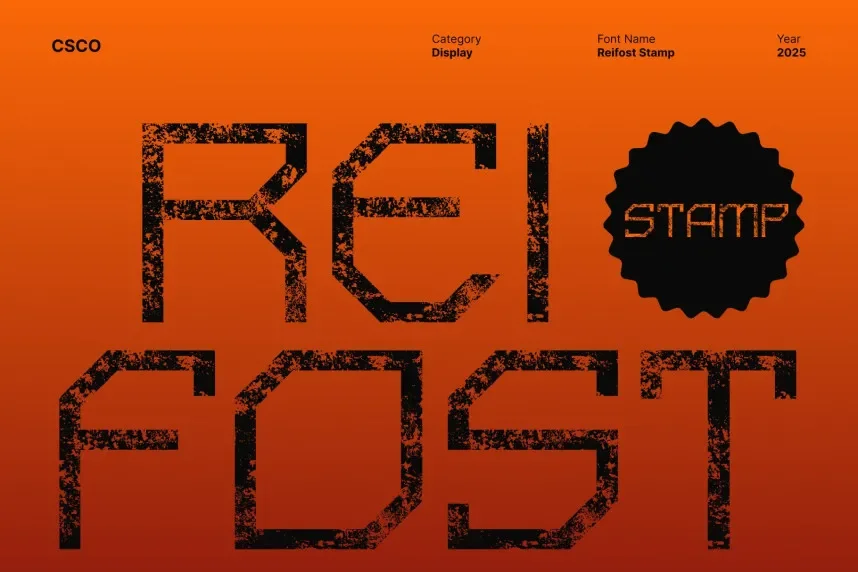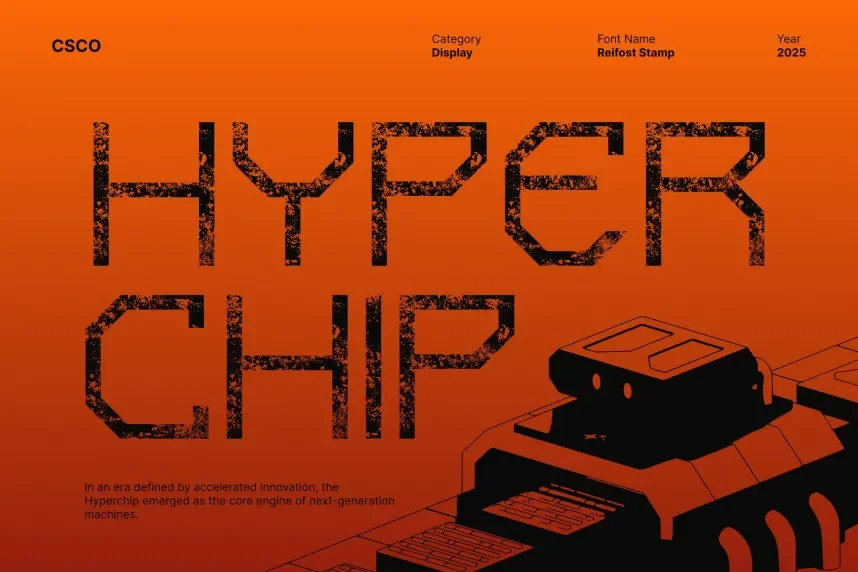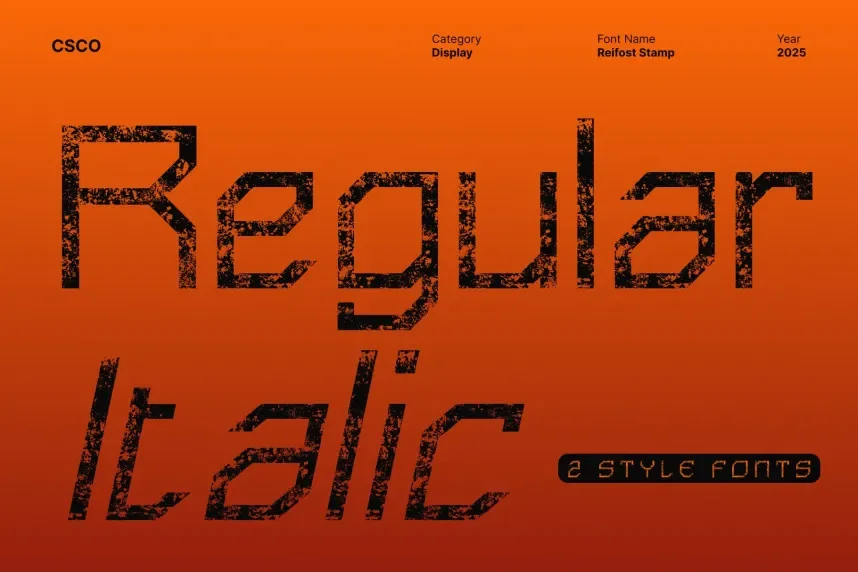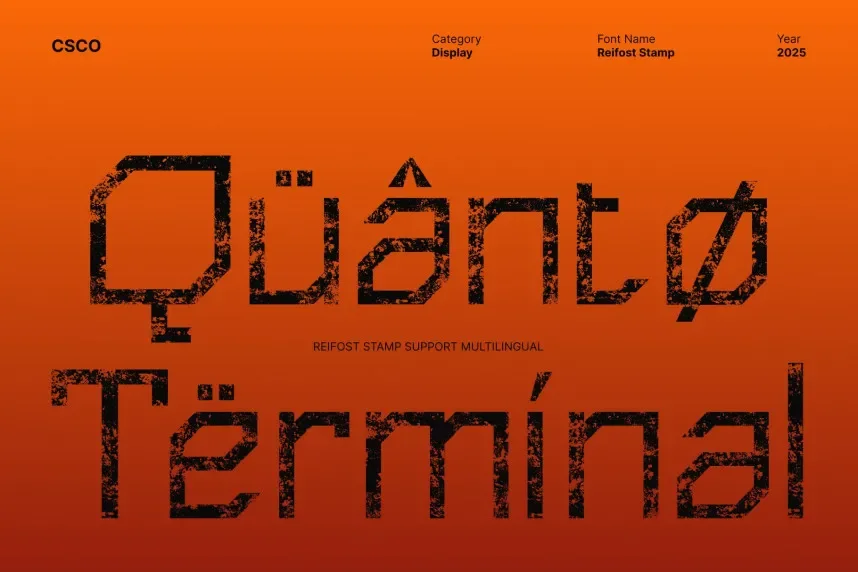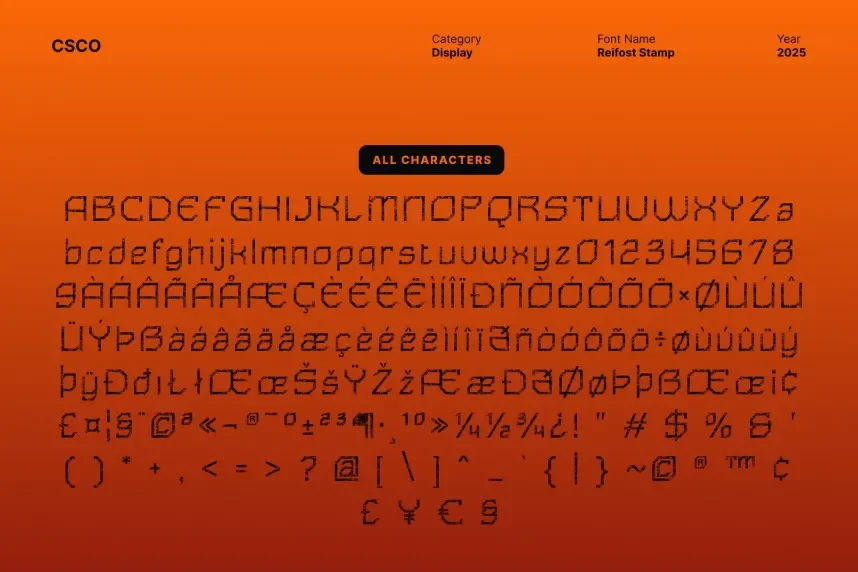
Reifost Stamp Font solves the challenge of creating bold, expressive text with a hand-stamped feel. Its rugged design makes it ideal for high-impact visuals while maintaining clarity.
Reifost is a stamp-style display font characterized by its bold, uneven strokes and textured appearance. Its design gives off a raw, handmade feel that makes it perfect for projects that require attention-grabbing typography.